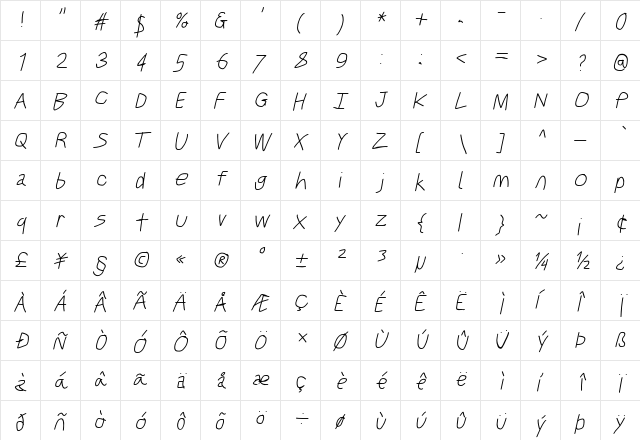
Just Breathe Obl4
Design Context for Just Breathe Typeface
Just Breathe is a composed and adaptable typeface that performs quietly and consistently across a wide range of design contexts.